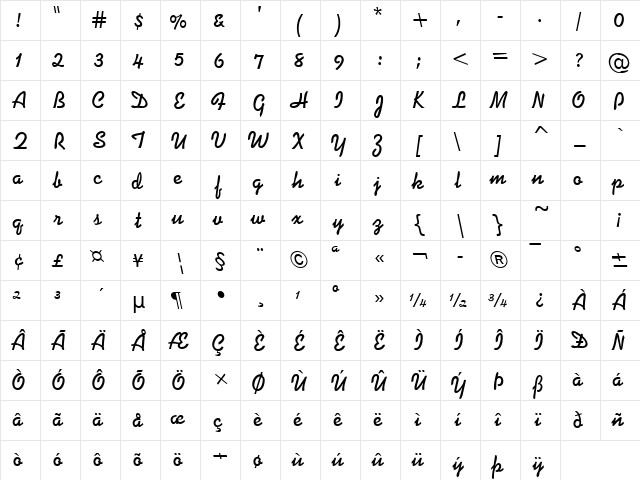
Di Normal
Design Context for Di Typeface
Di is a composed and adaptable typeface that performs quietly and consistently across a wide range of design contexts.